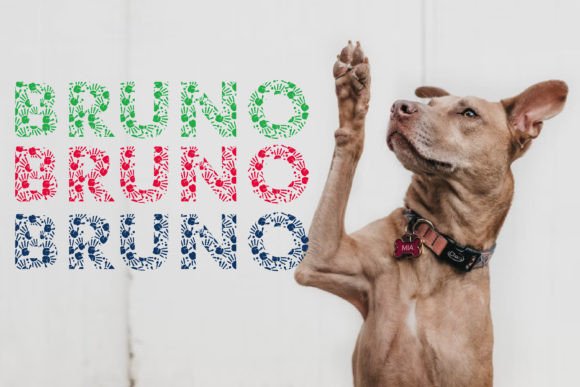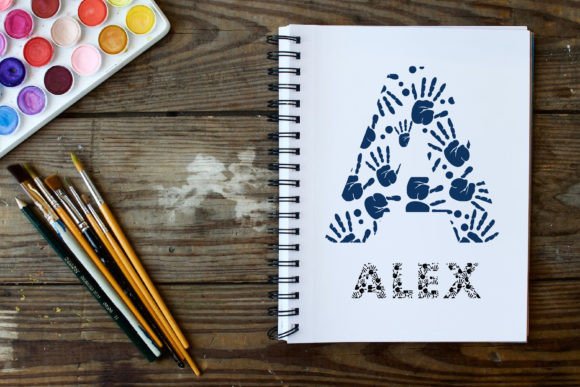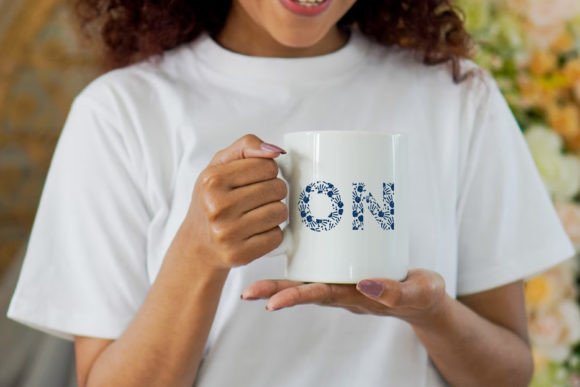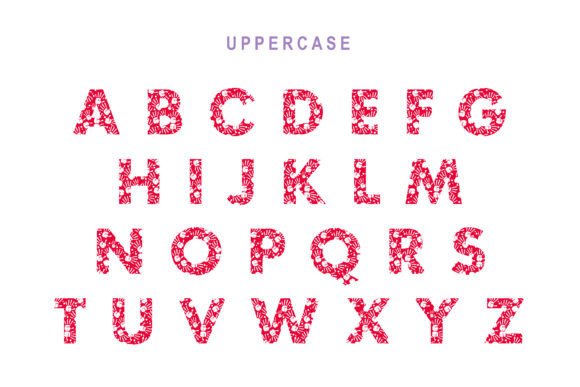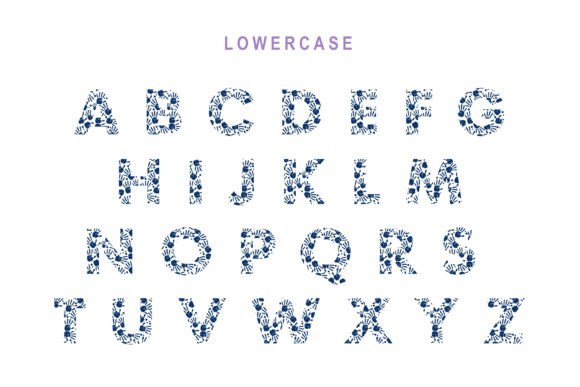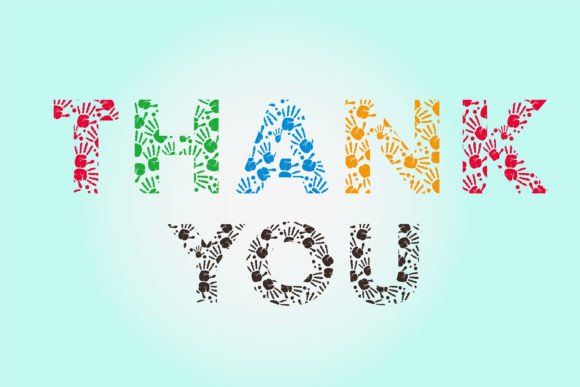
The High Five Font: A Fun and Quirky Addition to Your Design Arsenal
I’ll never forget the time I was working on a project for a client who wanted a fun and playful design for their children’s book cover. I had spent hours browsing through font libraries, but nothing seemed quite right. That was when I stumbled upon the High Five font. Its unique and cute decorative style immediately caught my eye, and I knew I had found the perfect fit. In this article, I’ll share my experience with the High Five font, its features, and how to make the most of it in your designs.
An Honest Review of High Five Font
The High Five font has quickly become one of my go-to fonts for creative projects. Here’s what I love about it:
• ✨ Unique and quirky design that’s sure to grab attention
• ✅ Highly legible, even at smaller font sizes
• 🎉 Extensive character set, including glyphs and stylistic alternates
• 👍 Works well for both digital and print projects
While the High Five font is fantastic, it’s not without its quirks. Here are a few things to keep in mind:
• 🤔 Some characters may not work well in combination with others, so be sure to experiment with different pairings
• ⚠️ The font’s decorative style may not be suitable for more formal or professional projects
The Story Behind High Five Font
The High Five font was designed by a team of creatives who wanted to create a fun and playful font that would bring a smile to people’s faces. Inspired by the joy of giving and receiving high fives, the font’s unique design is meant to evoke a sense of excitement and celebration.
What is the High Five font best used for? The High Five font is perfect for creative projects, such as t-shirt designs, posters, book covers, and more.
Is the High Five font suitable for formal projects? No, the High Five font’s decorative style may not be suitable for formal or professional projects.